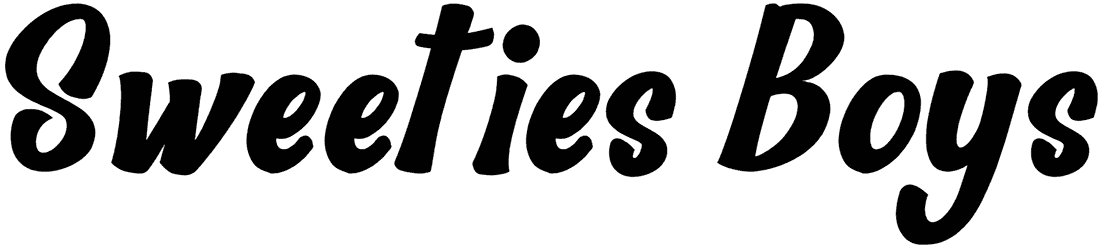
Sweeties Boys Font
Sweeties Boys is a new generation of handwritten fonts with a minimal look that adds attractive curves with satisfying patterns to traditional script fonts. Therefore, it is an ideal option to increase the effectiveness without compromising the readability or simplicity of the design.
The best thing about this font is its versatility, which means that there is no limit to its use in different writing styles. So you can use this font to design letters, headlines, or titles.